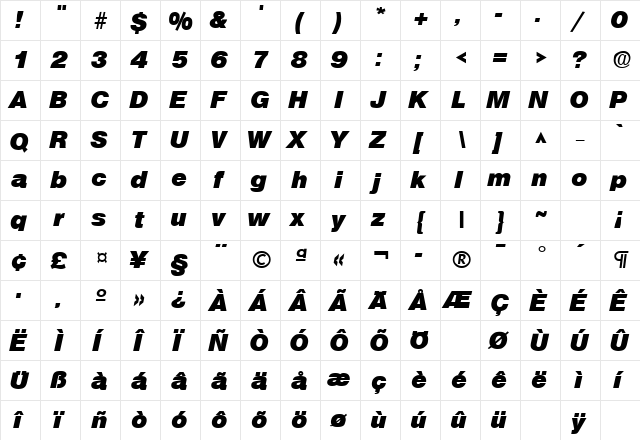
SansLH Bold Italic
Design Context for SansLH Typeface
SansLH takes a measured approach to typography — its balanced proportions and neutral character make it a reliable workhorse for both digital and print work. The slanted form adds forward momentum and visual energy. The heavy weight commands attention and anchors typographic hierarchies.